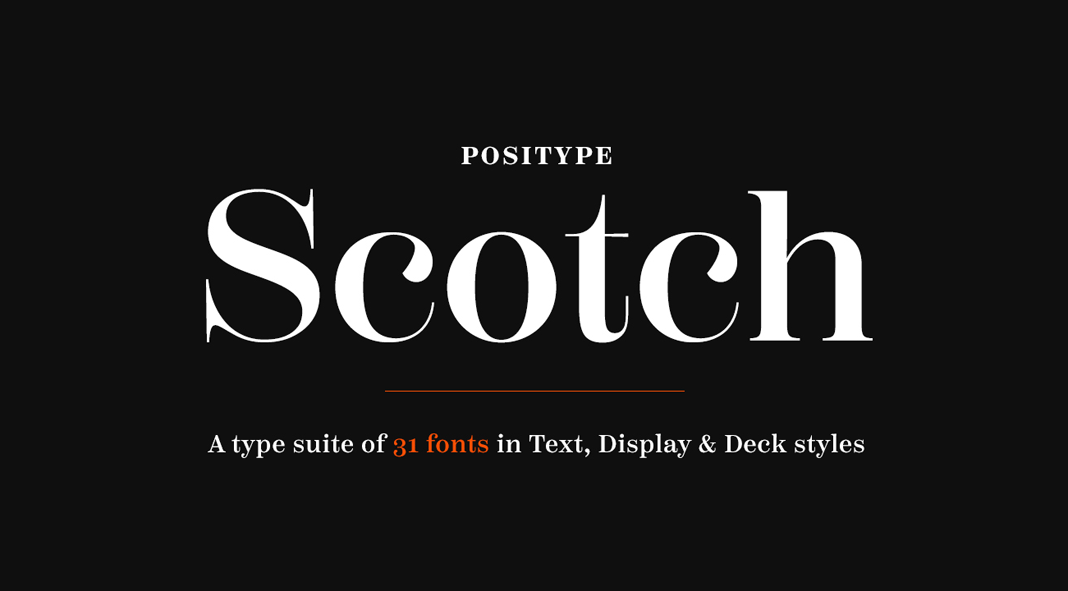
Scotch, a type suite of 31 fonts including Text, Display, and Deck styles.
Designed in 2017 by Neil Summerour for foundry Positype, the Scotch font family is a clean, rational, and elegant serif. The family consists of 31 individual fonts including 3 styles: Text, Display, and Deck. Scotch Text comes with 6 weights plus matching Italics. This version is quite easy to read and you can use it for long text sections. It also includes 4 sets of numerals, small caps, and additional extras. Scotch Display is a bit thinner and has shorter Ascenders and Descenders. Furthermore, it is equipped with a great contrast and more calligraphic Italics. Deck combines traits and proportions shared between Text and Display. It is a great choice for subheadings and short titles in middle-sizes. The whole type family is currently available for purchase as introductory offer on MyFonts as both web font and display font, just follow the link below.